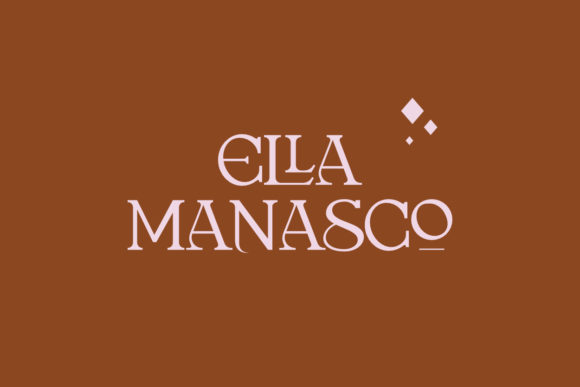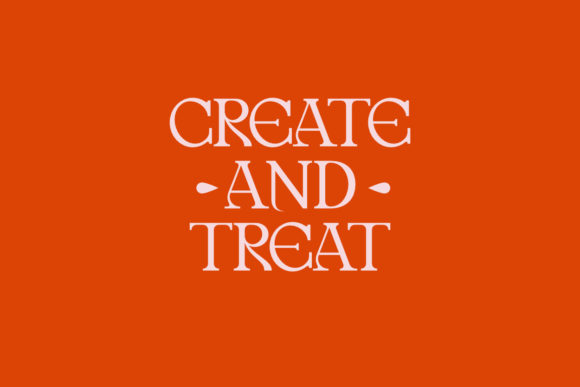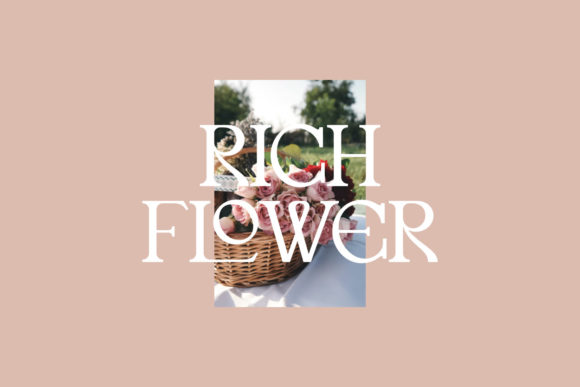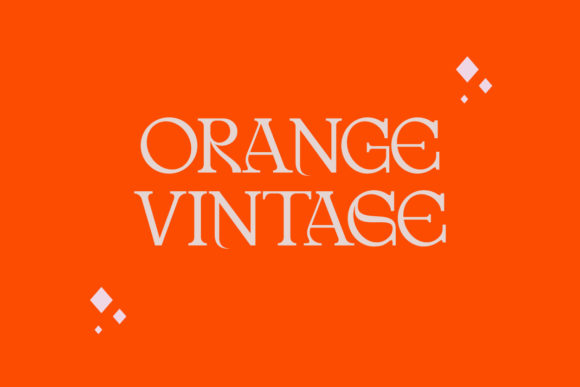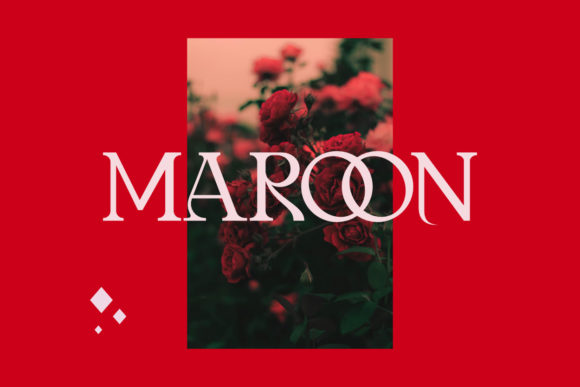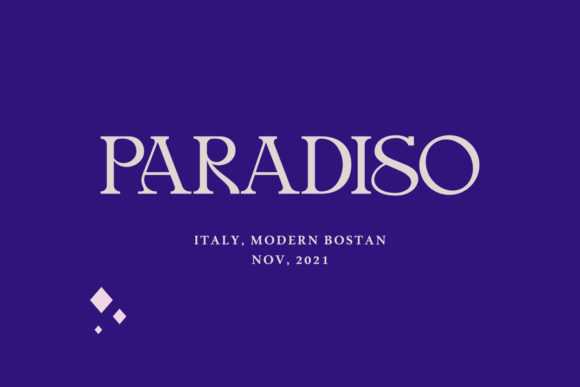
Introducing Besage Font: A Distinct and Assertive Display Font
Are you tired of using the same old fonts in your designs? Look no further than Besage Font, a unique and refreshing display font that’s sure to take your creations to the next level. In this article, we’ll dive into the world of Besage Font, exploring its features, benefits, and uses, and why it’s a must-have for designers and crafters alike.
What is Besage Font?
Besage is a distinct and assertive display font that was particularly crafted for those who need a beautiful and refreshing look to their designs. With its bold and eye-catching style, Besage Font is perfect for making a statement and grabbing the attention of your audience. Whether you’re designing a logo, creating a poster, or crafting a social media graphic, Besage Font is the perfect choice.
Features of Besage Font
So, what makes Besage Font so special? Here are just a few of its key features:
- Unique and Distinctive Style: Besage Font has a one-of-a-kind style that’s sure to set your designs apart from the crowd.
- Bold and Assertive: With its bold and assertive style, Besage Font is perfect for making a statement and grabbing attention.
- Refreshingly Beautiful: Besage Font has a refreshingly beautiful look that’s sure to add a touch of elegance to your designs.
- Highly Versatile: Besage Font can be used in a variety of design applications, from logos and posters to social media graphics and more.
Benefits of Using Besage Font
So, why should you choose Besage Font for your designs? Here are just a few of the benefits of using this amazing font:
- Adds Visual Interest: Besage Font adds a touch of visual interest to your designs, making them more engaging and attention-grabbing.
- Enhances Brand Identity: With its unique and distinctive style, Besage Font can help enhance your brand identity and set you apart from the competition.
- Perfect for Headings and Titles: Besage Font is perfect for headings and titles, adding a touch of elegance and sophistication to your designs.
- Easy to Read: Despite its bold style, Besage Font is easy to read, making it perfect for use in a variety of design applications.
Uses of Besage Font
So, how can you use Besage Font in your designs? Here are just a few ideas to get you started:
- Logos and Branding: Use Besage Font to create a unique and memorable logo that sets your brand apart.
- Posters and Flyers: Add a touch of elegance to your posters and flyers with Besage Font.
- Social Media Graphics: Use Besage Font to create eye-catching social media graphics that grab attention.
- Headings and Titles: Use Besage Font to add a touch of sophistication to your headings and titles.
In conclusion, Besage Font is a distinct and assertive display font that’s perfect for designers and crafters who need a beautiful and refreshing look to their designs. With its unique and distinctive style, bold and assertive look, and highly versatile design, Besage Font is a must-have for anyone looking to take their designs to the next level. So why wait? Try Besage Font today and see the difference it can make in your designs!